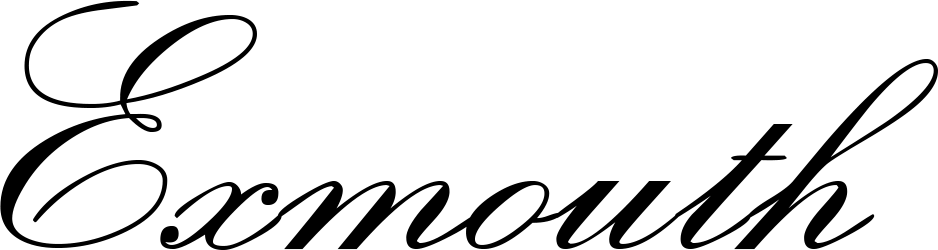
Exmouth Font
When it’s a matter of a first-class design for which you require a fancy font, Exmouth can be the ultimate choice for achieving a breathtaking result. Comprised of gorgeous hand-lettered characters, this script font is excellent for branding, wedding invitations, stationery, websites, or any other outstanding projects.
Although modern, contemporary, and stylish, Exmouth does not offer clear readability due to its cursive style, but then again, is sure to hold your audience spellbound because of the same trait.